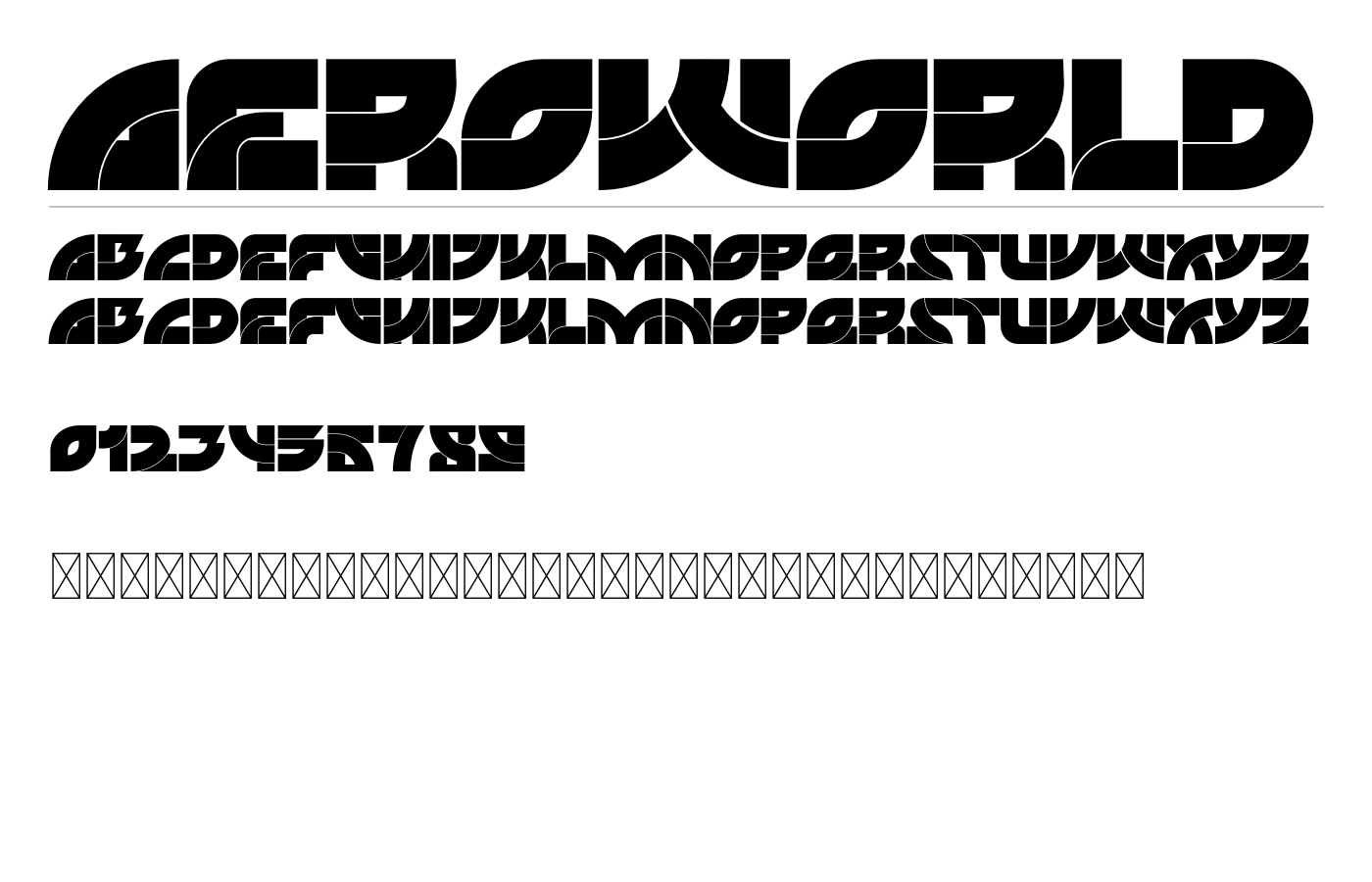
Aeroworld is a bold, geometric sans serif font with a futuristic and experimental design. Its thick, blocky letterforms display sharp angles and smooth curves, giving it a strong, modern feel suited for eye-catching headlines, logos, and posters that aim to convey innovation and a cutting-edge vibe. This font works best in creative and tech-oriented branding where a bold, unique statement is needed.
Aeroworld Font
About Aeroworld Font
| Font family | Aeroworld Font |
| Designer | Lettercorner Studio |